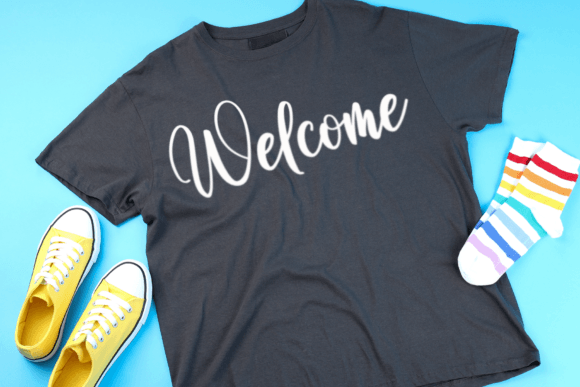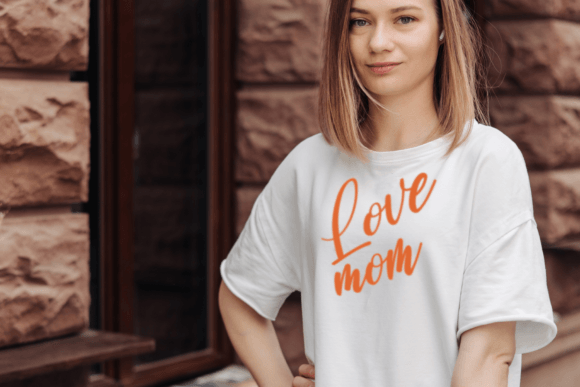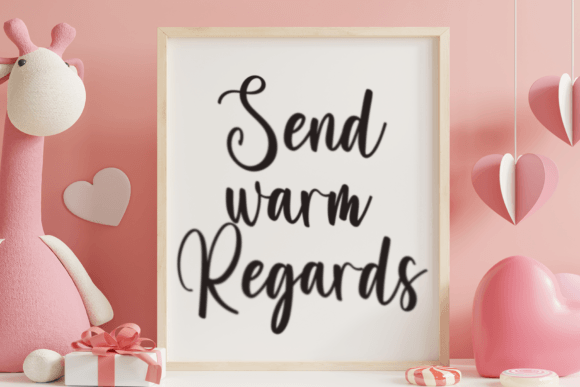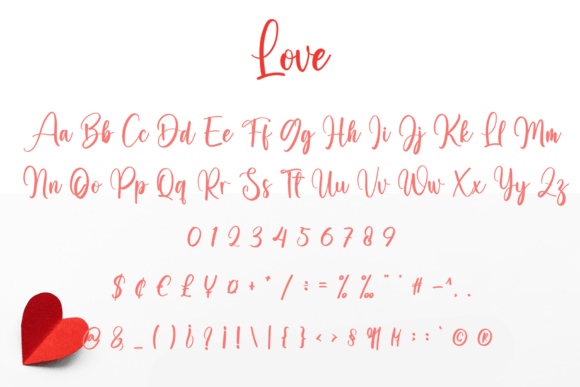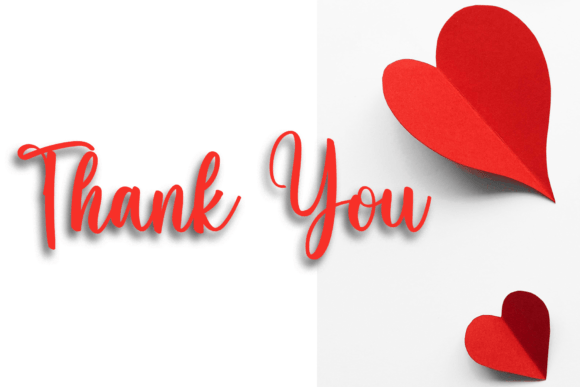
Love Font
About Love Font
“Love” is a distinctive handwritten font characterized by its rounded letterforms and meticulous craftsmanship, resulting in a font that achieves the intended results with precision. This font serves as a versatile choice, suitable for writing titles, invitations, letters, and a wide array of other creative products.
One of the defining features of “Love” is its unique and round lettering style. The rounded letterforms impart a friendly and approachable appearance, making it perfect for projects where you want to convey a sense of warmth and welcome. The careful attention to detail in its design ensures that “Love” delivers the desired visual results.
The font’s versatility shines through in its ability to adapt to different types of products and design needs. Whether you’re looking to create eye-catching titles for posters or flyers, design elegant and inviting invitations for special events, or craft personalized letters or messages, “Love” is a font that can accommodate a wide range of creative projects.
“Harnessing the power of love” is a metaphorical expression that underscores the font’s ability to convey emotions and evoke positive feelings. It’s an apt choice when you want to add a touch of humanity and approachability to your work, making it relatable and engaging for your audience.
In summary, “Love” is a unique and well-crafted handwritten font with rounded letterforms that convey a sense of friendliness and approachability. Its versatility allows it to be used for a multitude of design purposes, making it a valuable addition to your font collection. Whether you’re working on titles, invitations, letters, or other creative projects, “Love” is a font that can help you achieve your desired visual results with ease and style. Embrace the warmth and versatility of “Love” in your next project, and watch as it resonates with your audience and enhances the overall appeal of your creations.